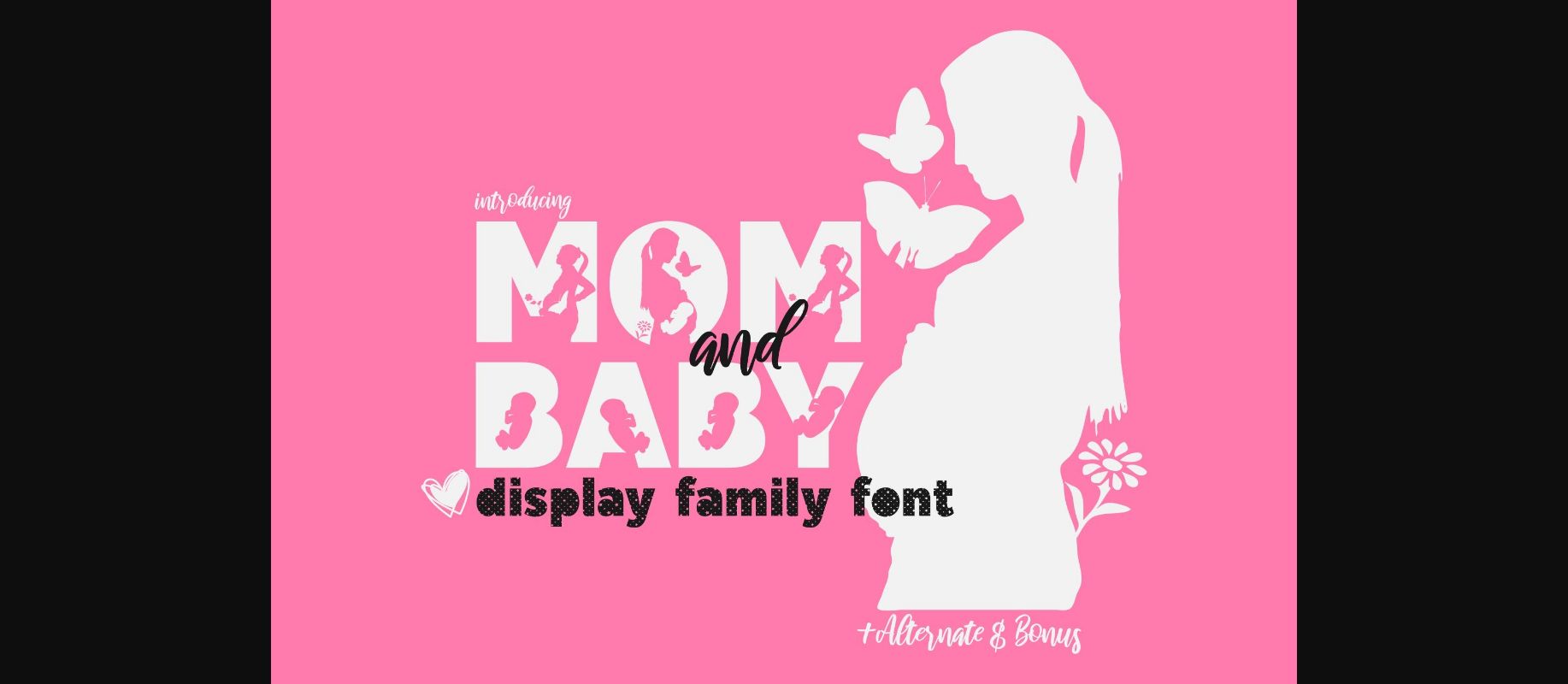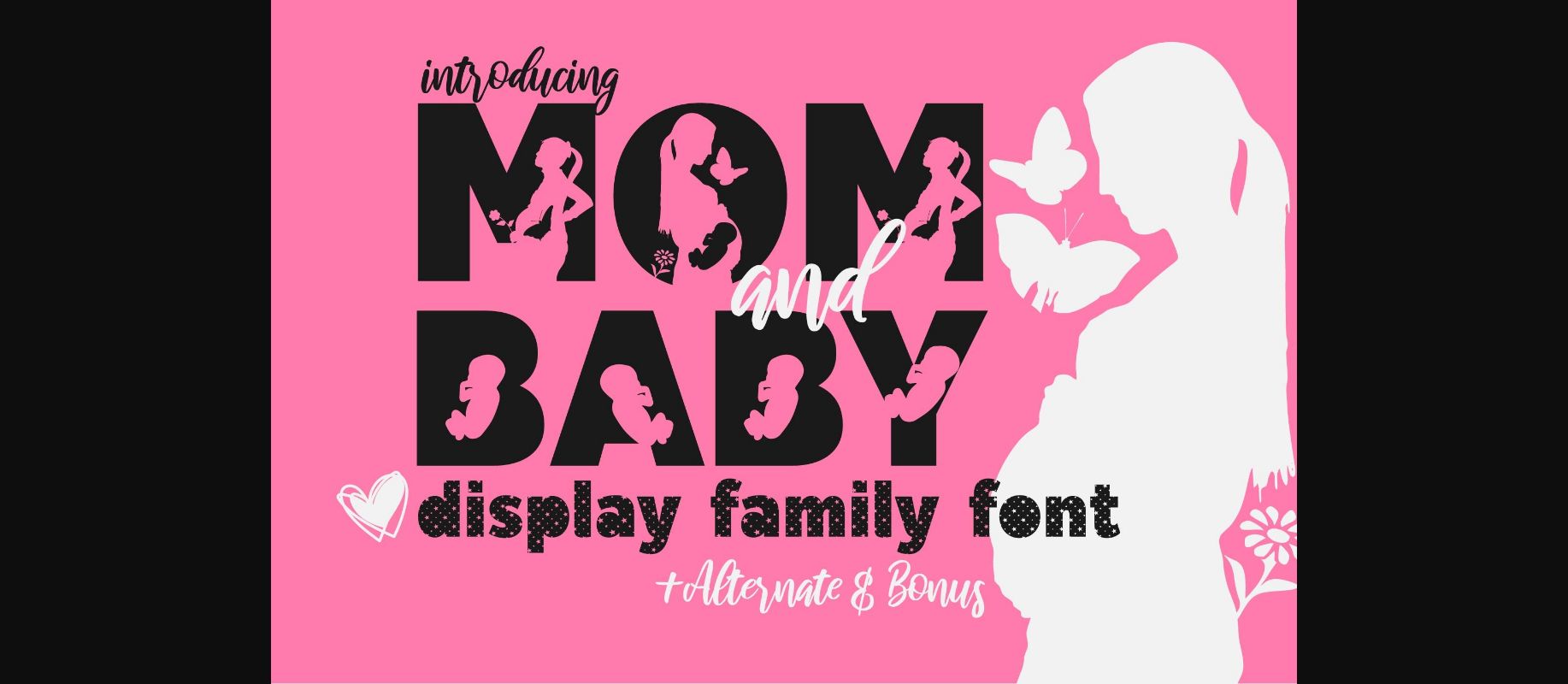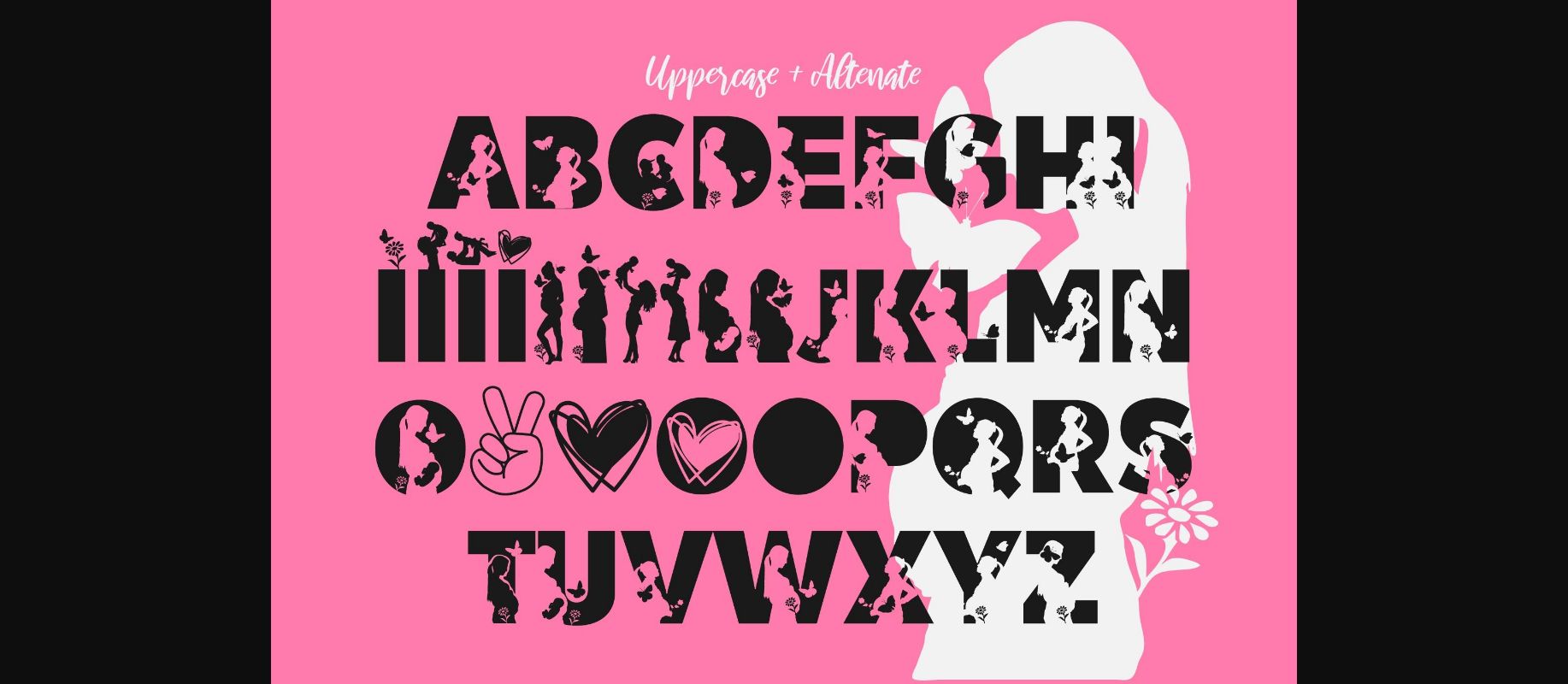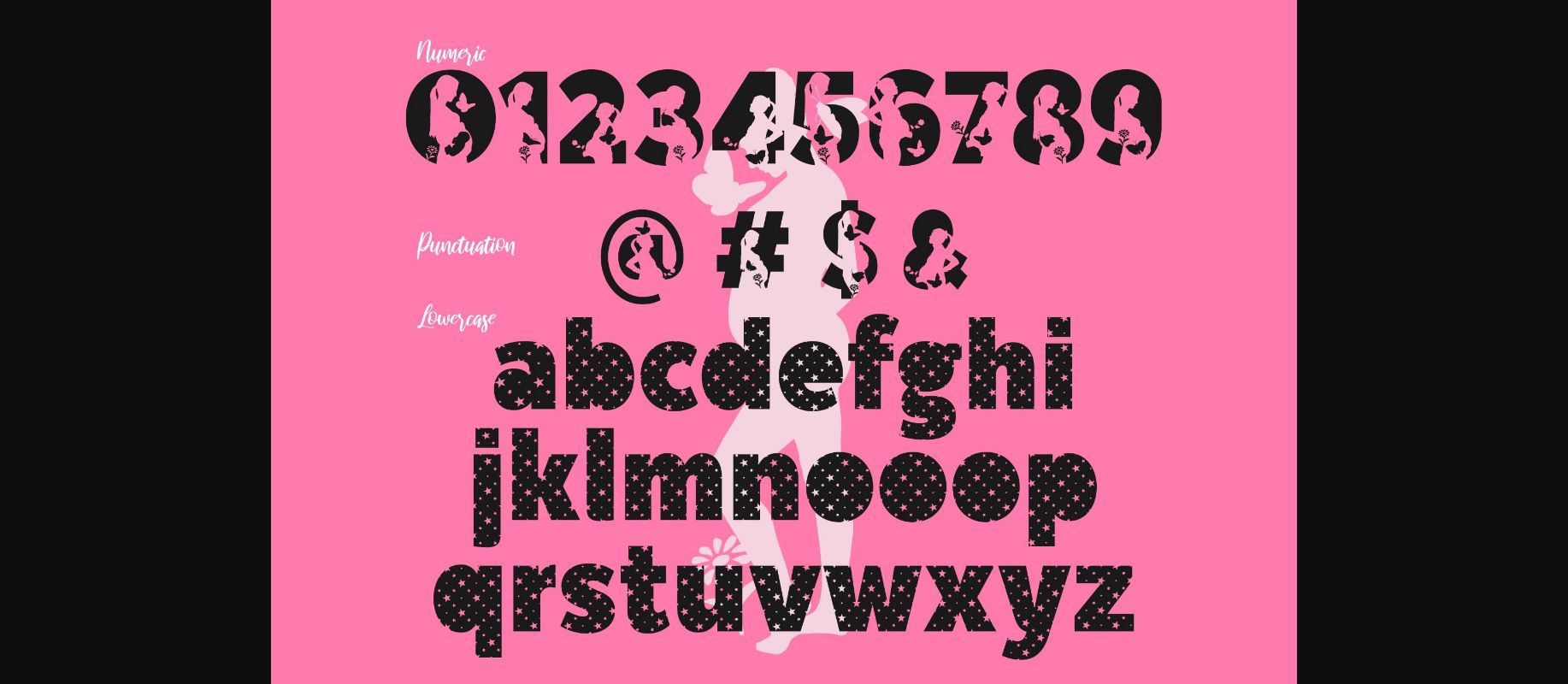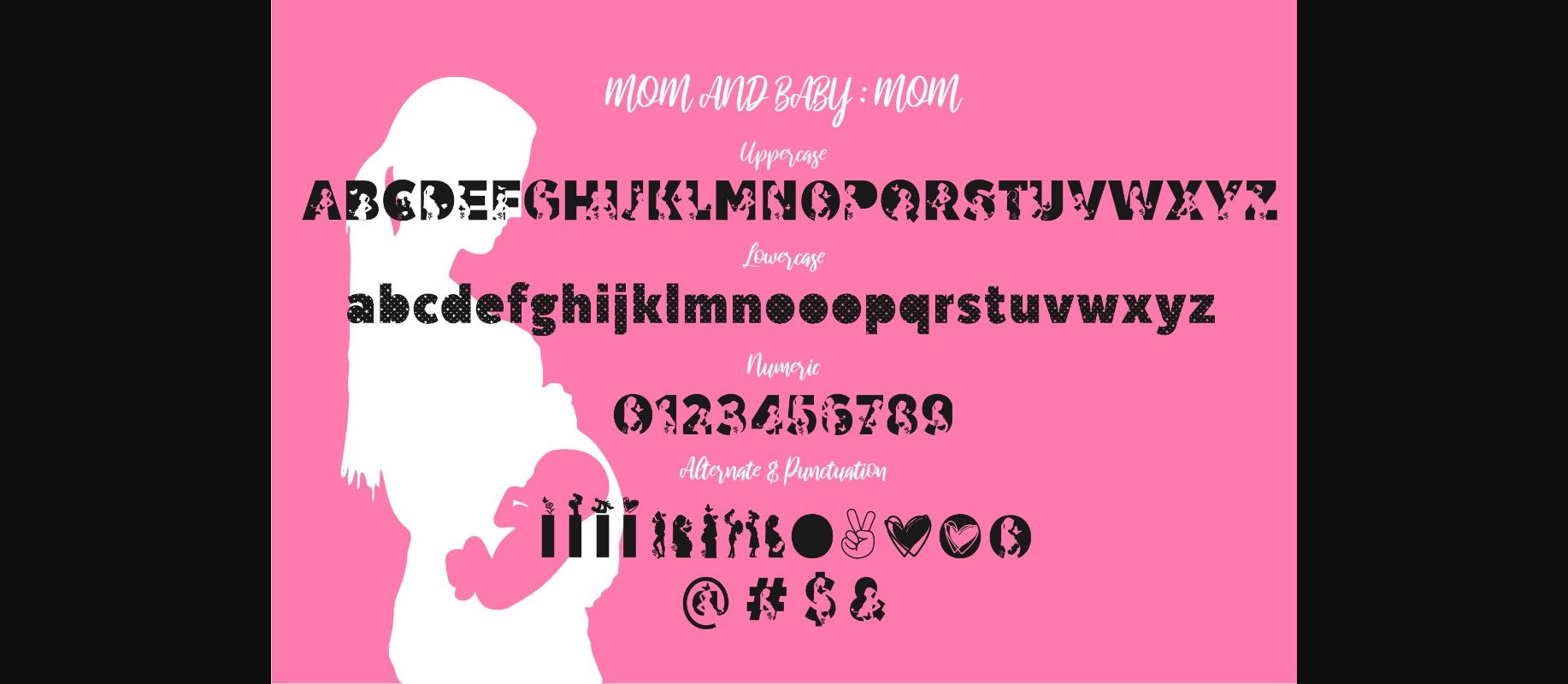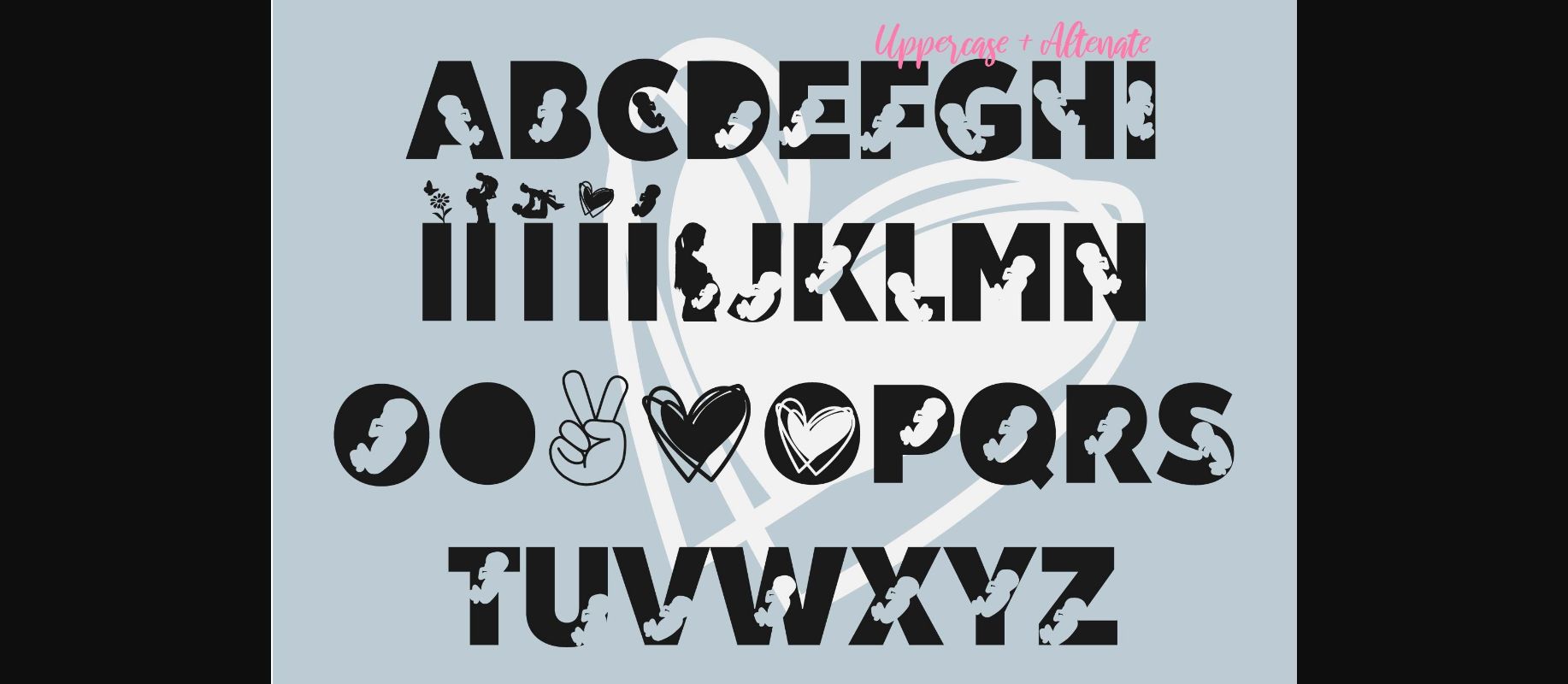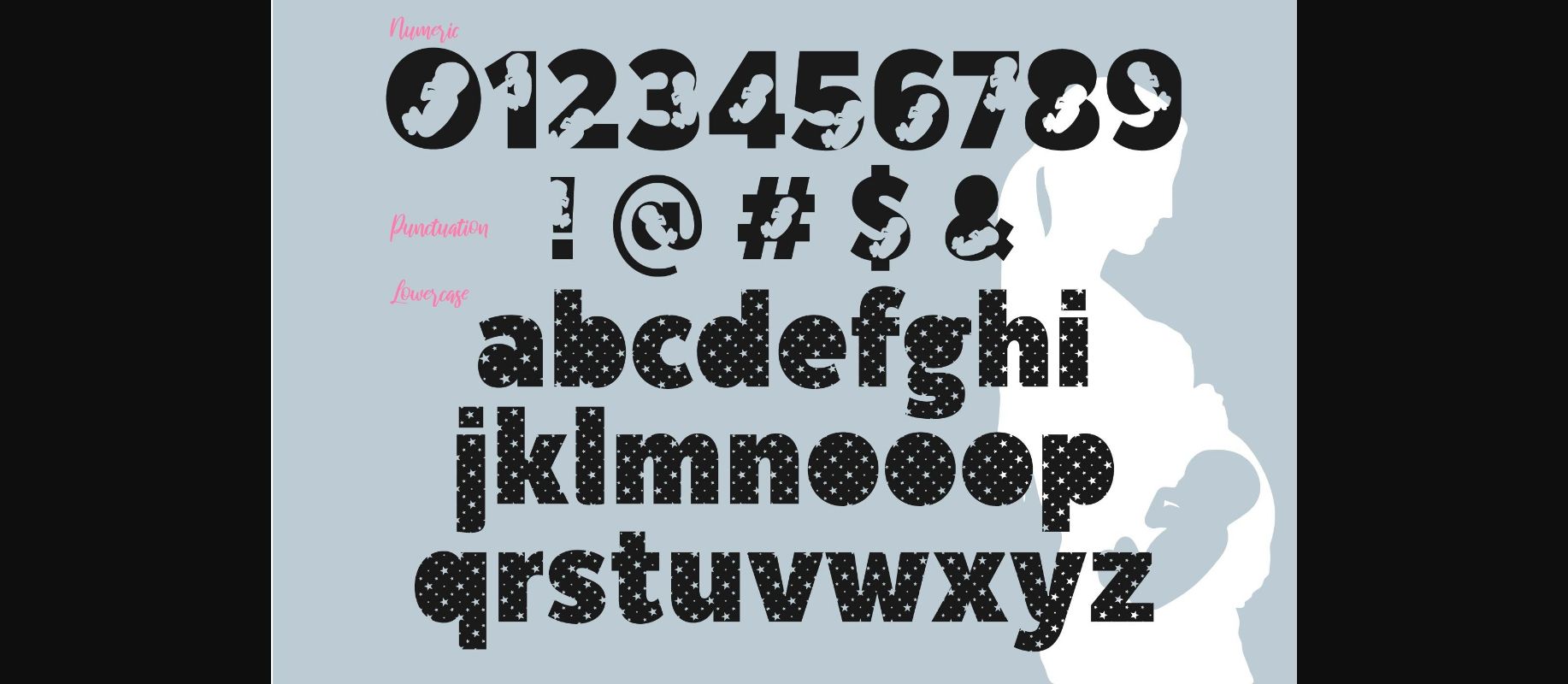
XMom and Baby Font Font
About XMom and Baby Font
Mom and Baby Create gorgeous and timeless designs with Mother, an interesting and unique decorative font.
Fall in love with its incredibly stylish look and use it for logos, quotes, invitations, business cards, PowerPoint presentations, and more!